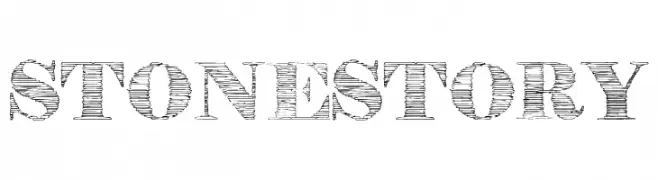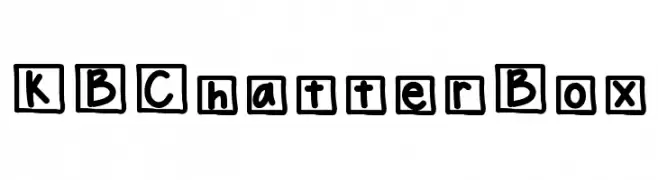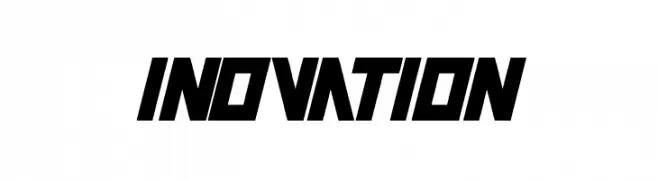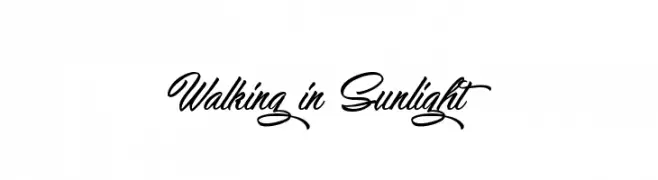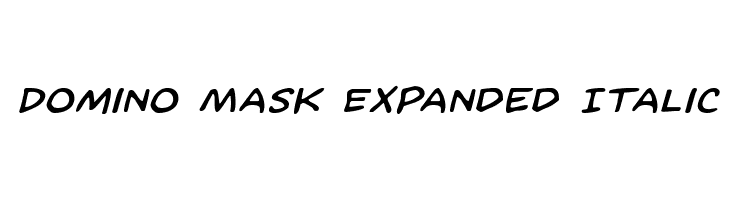
A playful, handwritten font with uneven strokes and a whimsical style.
A casual, handwritten font with smooth, flowing strokes and a friendly demeanor.
A textured, stone-like serif font with a rugged, carved appearance.
A playful, puzzle-themed decorative font with bold characters.
A monospaced font with a digital, retro aesthetic and geometric design.
A playful, hand-drawn font with characters enclosed in irregular outlines.
A bold, angular font with a futuristic and dynamic style.
A bold, elegant script font with flowing curves and high contrast.
A decorative script font with elegant, flowing characters and ornate swashes.